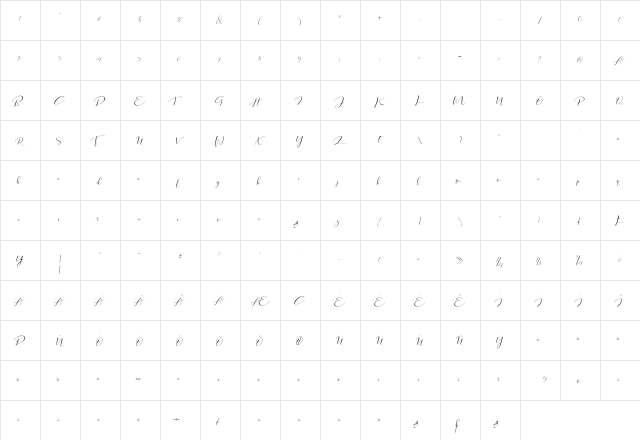
Tifany Script Regular
Design Context for Tifany Script Typeface
Tifany Script flows with the natural rhythm of handwritten lettering, making it ideal for designs that call for warmth and personal expression.